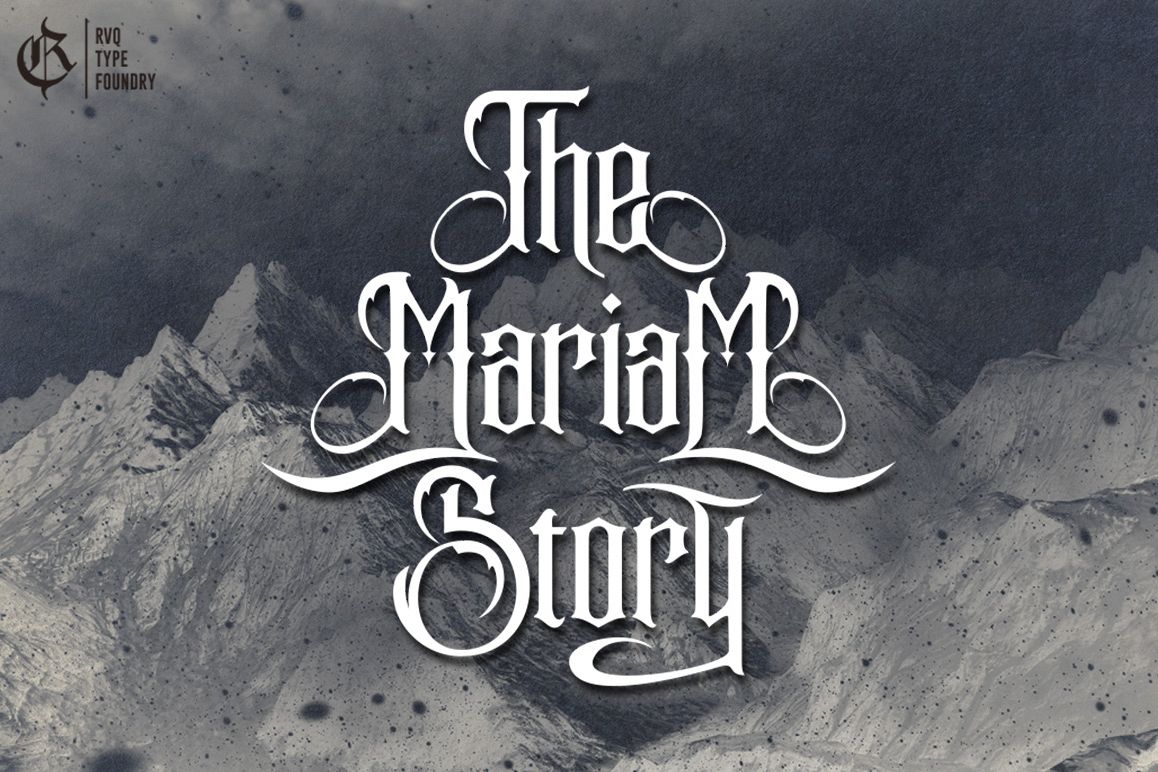
The mariam story is new font from Rvq Typefoundry, new black letter font elegant and vintage feel character set. To create the beautiful combination, just mix the uppercase and lowercase then mix with the alternative glyphs.